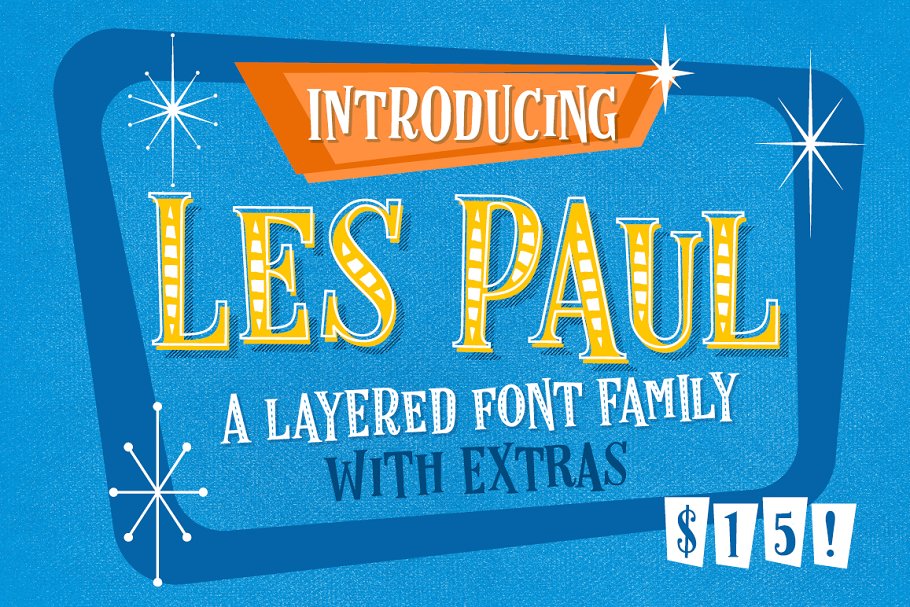
Looking for a unique and captivating font style for your lettering? Look no further than Les Paul - a layered font family with retro extras! Created by Pavel Korzhenko, Les Paul is a slab serif font that is inspired by postcards and advertising from the 50s and early 60s, making it the perfect addition to your collection if you want a vintage vibe.
With 7 different styles to choose from, you can mix and match to create the perfect look for your project. Use the lined style for a shadow effect or as a front-side font, and choose from four different inline styles. You can even add an outline as a decorative element to your type graphic.
But that's not all - Les Paul also includes cool retro-look extras, allowing you to add a touch of nostalgia to your designs. The font family supports Western-European symbols, making it a versatile choice for all your design needs.